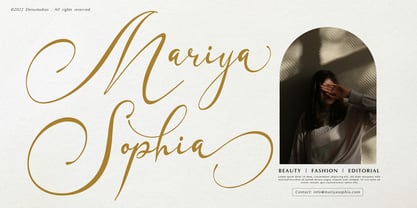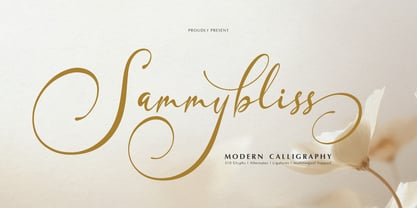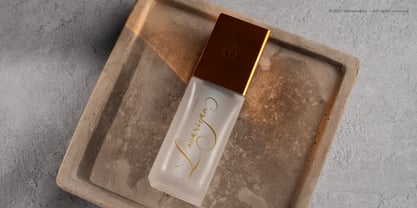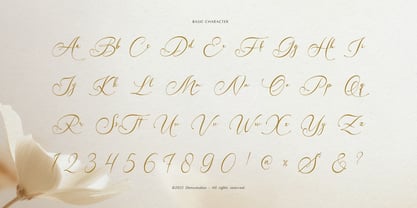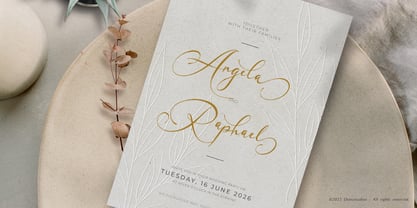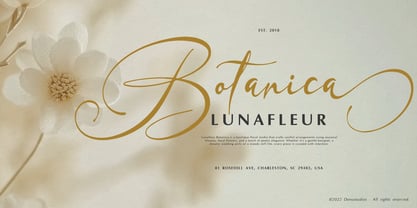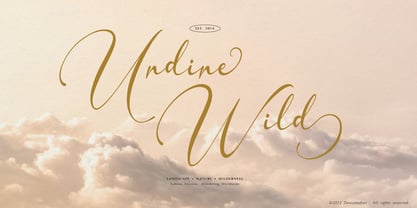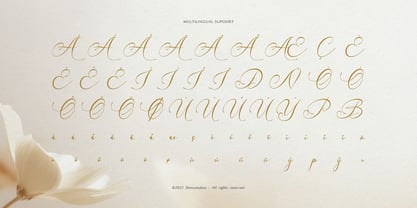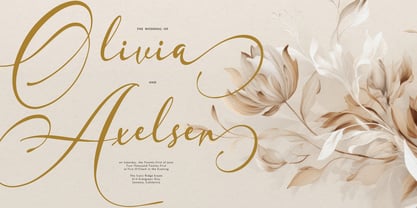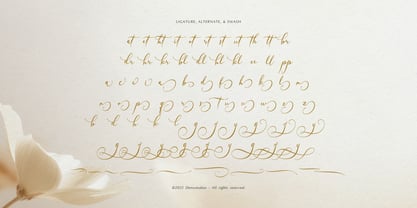
Sammybliss
by Denustudio
Sammybliss | Modern Calligraphy, from Denustudios, suitable for any projects such as: logos, branding projects, homeware designs, product packaging, mugs, quotes, posters, shopping bags, t-shirts, book covers, name card, invitation cards, greeting cards, label, photography, watermark, special events, and all your other lovely projects that need Modern Calligraphya taste.
• Regular and Italic
• Standard glyphs
• Alternate and Ligature
• Fonts include multilingual support